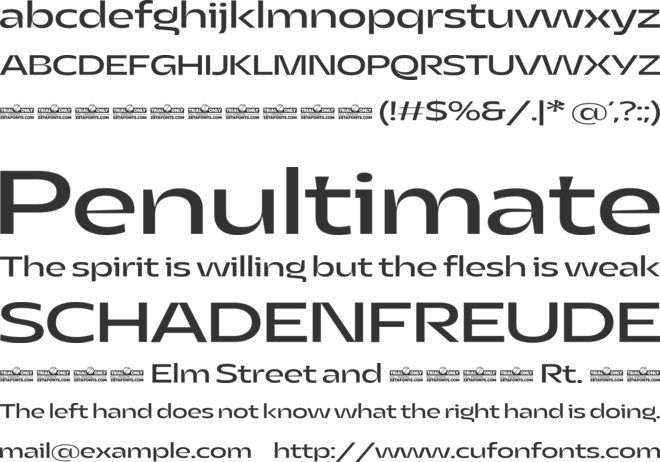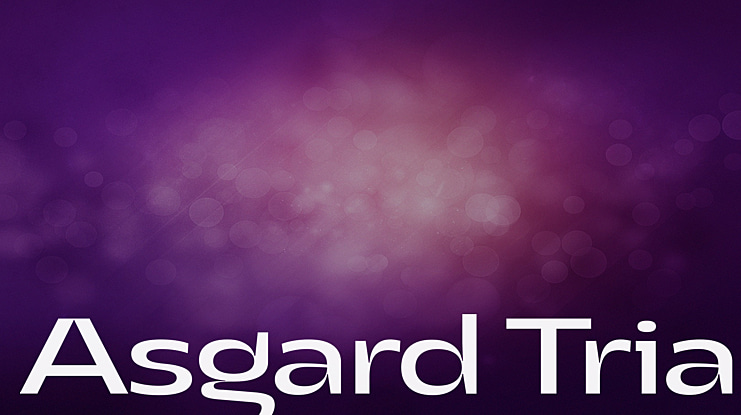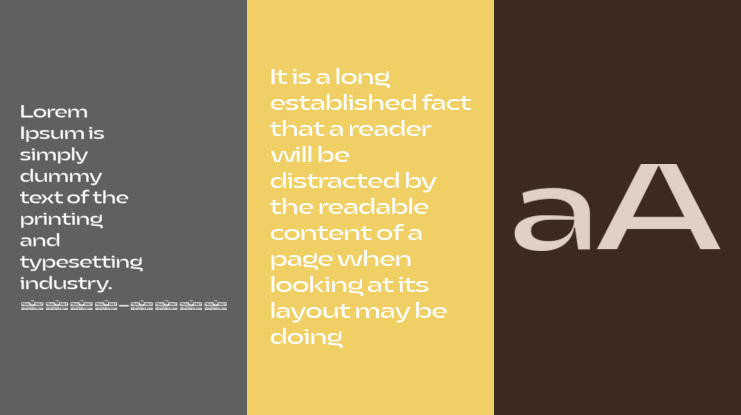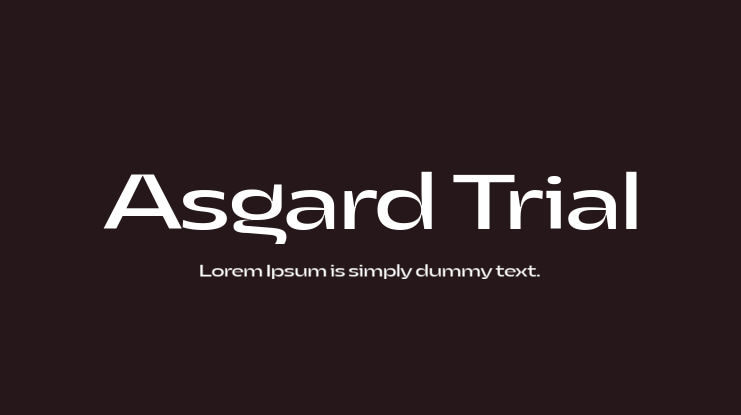
Asgard Trial Font Family
Francesco Canovaro
Francesco Canovaro designed Asgard as a way to mix his passion for the raw energy of extra bold sans serif typography with the expressivity of high contrast and calligraphy-inspired letterforms. He built the typeface around a strong geometric sans skeleton, to make the letters feel solid and powerful while using wood-type vernacular solutions to solve density through high contrast details. The typeface name was chosen as an homage to the mythical homeland of the Norse Gods, evoking a land of fierce warriors, power and strength - but also of divine, delicate beauty.
Thanks to the help of Andrea Tartarelli and Mario de Libero the original design was extended along with the design space, expanding the number of weights and widths with a "workhorse typeface" approach, and adding also a slanted axis to experiment with italics. The result is a super-family of 9 styles of 8 weights for a total of 72 fonts, each coming with an extended set of 968 glyphs covering over 200 languages using Latin, Greek and Cyrillic scripts. The three variation axes (width, weight, slant) are also all accessible in a variable font version that is included with the whole family.Β Β Β More...
This gives the designer a full range of options for typesetting, with the Normal and Fit widths providing basic display and text-sized alternatives, and the Wide width adding more display and titling options. The inclusion of backslant italic styles gives Asgard an extra chance to add its voice to the typographic palette. To complement this, all Asgard fonts have been given a full set of Open Type Features including standard and discretionary ligatures, stylistic sets, positional numerals and case sensitive forms.
Dynamic and expressive, Asgard is a super-family that manages to look brutal and refined at the same time, quoting the vernacular typographic practices of letterpress print while expressing the contemporary zeitgeist.